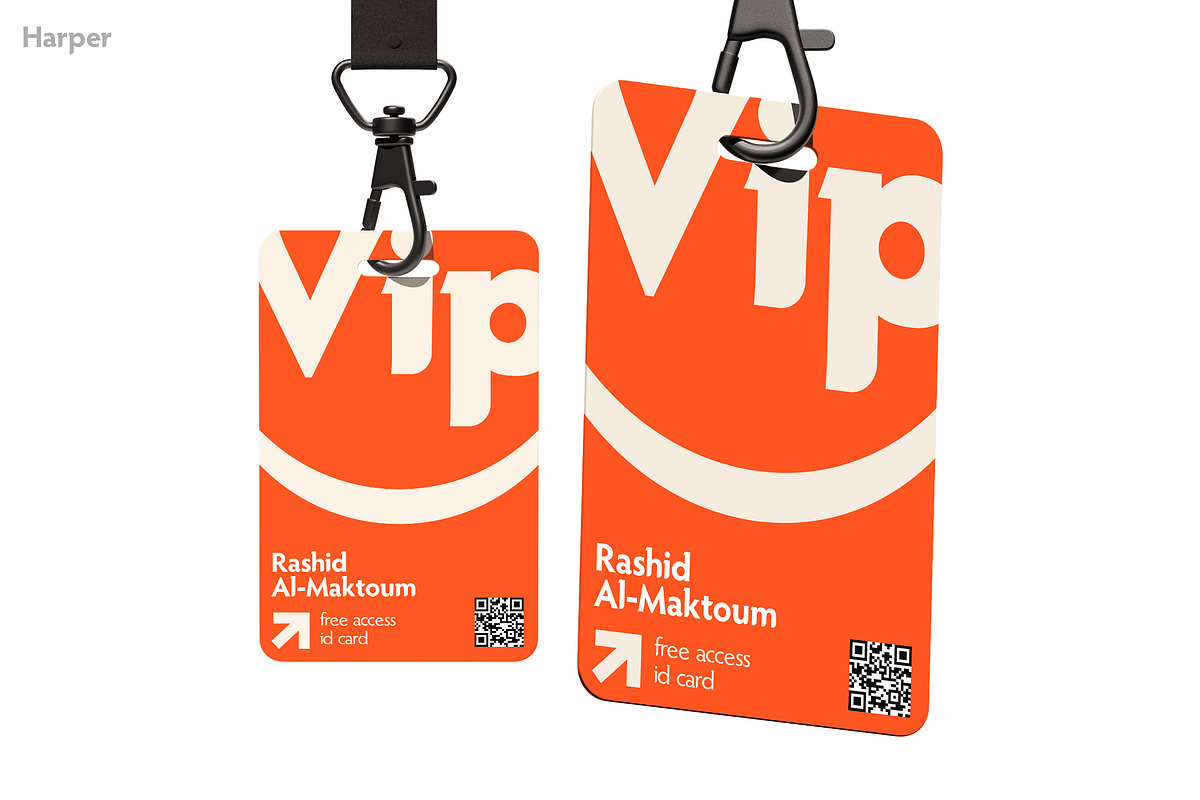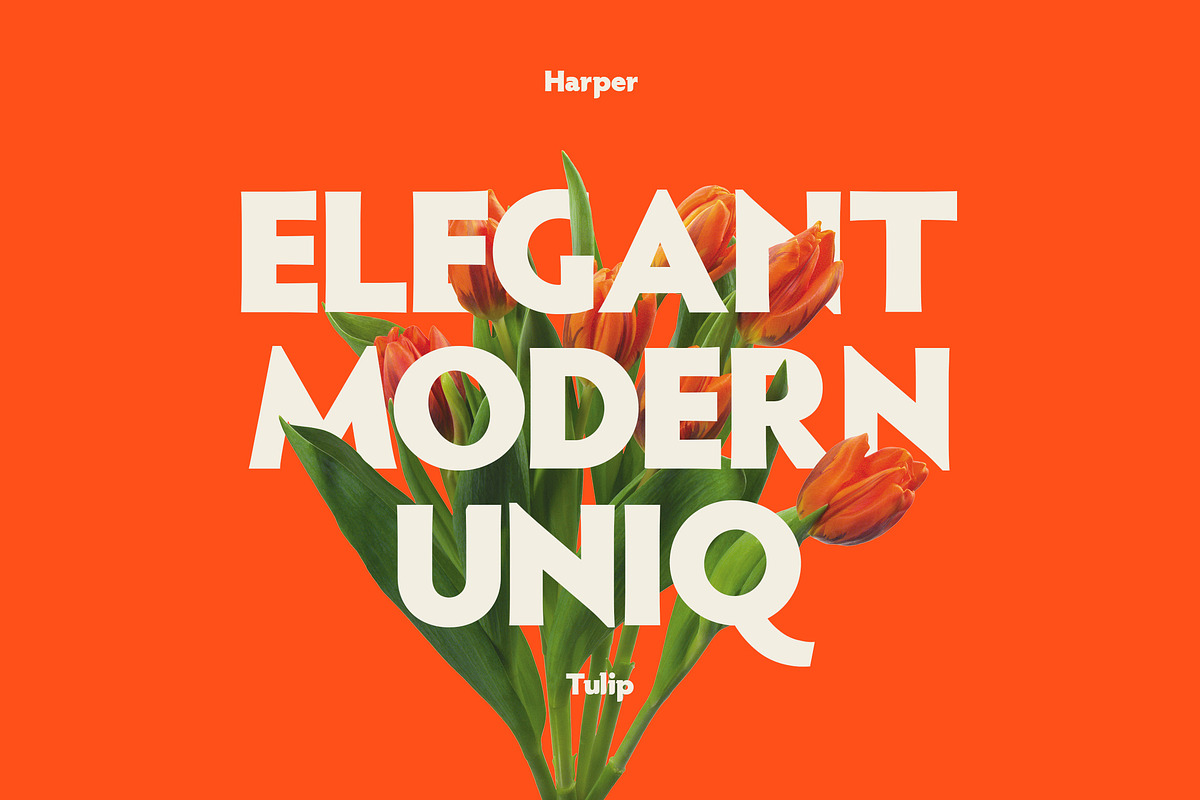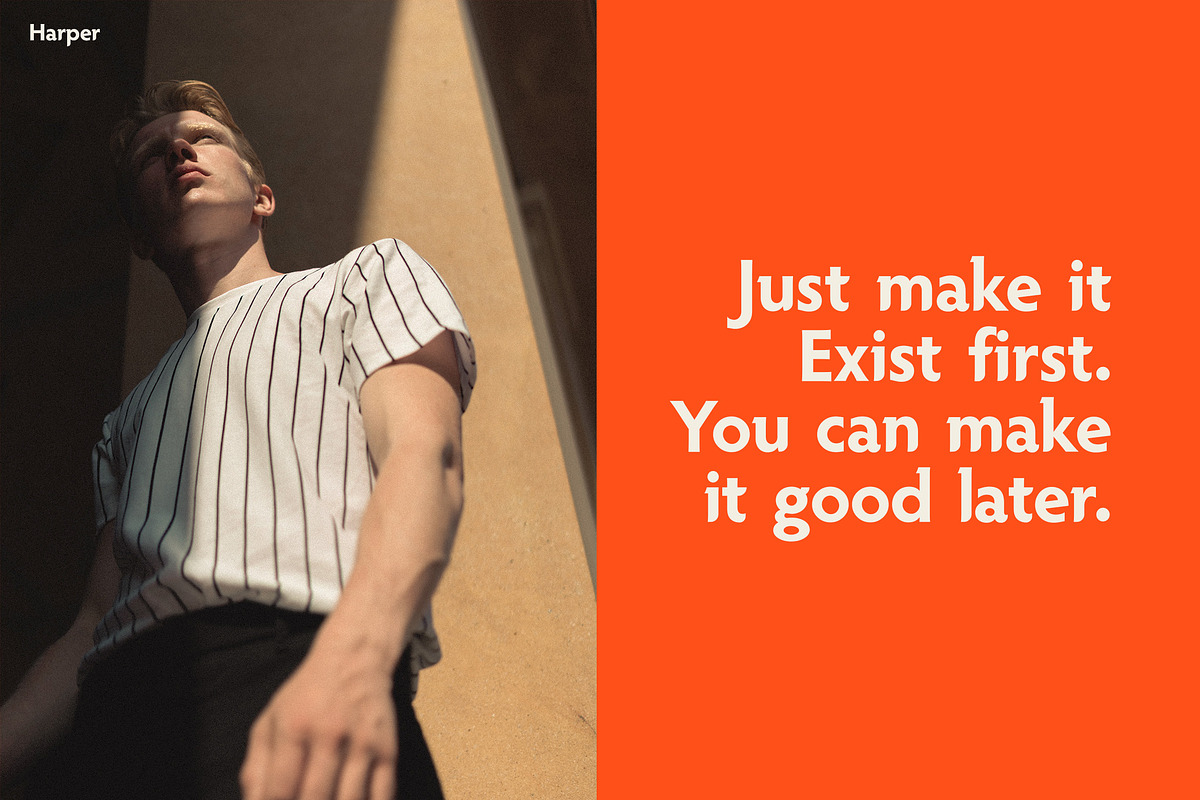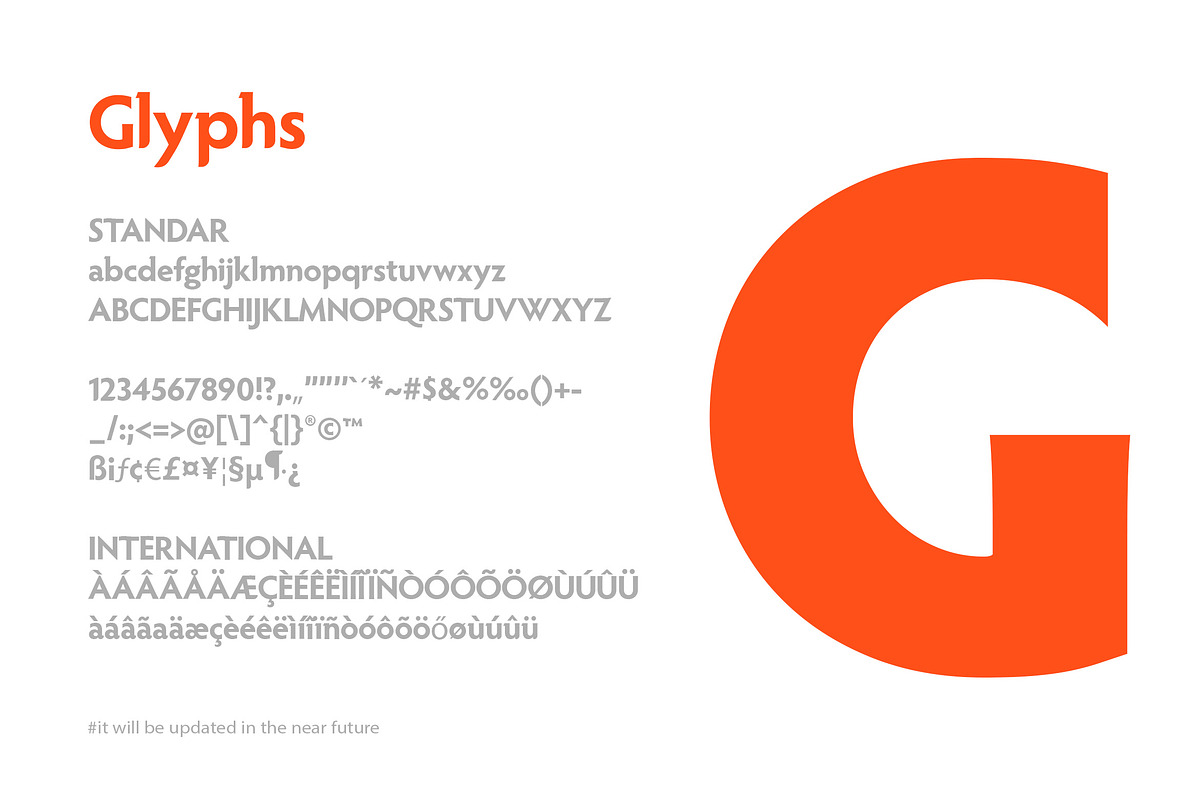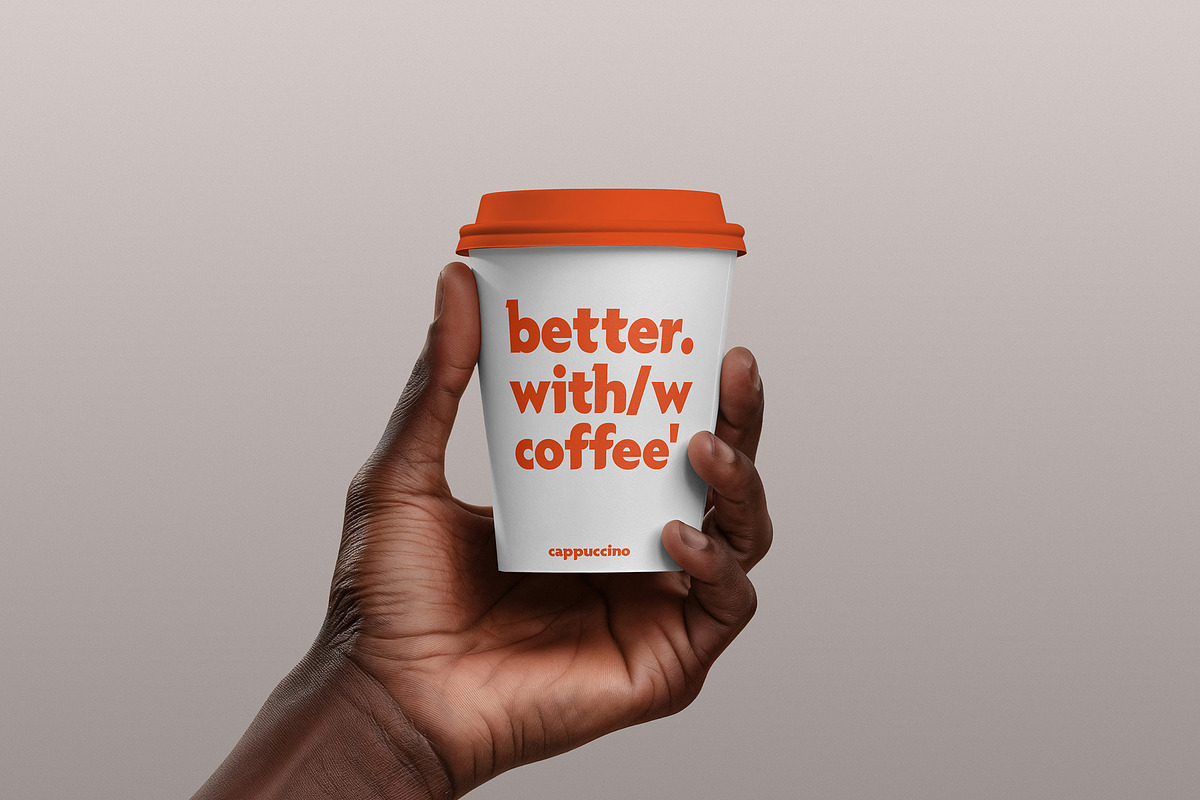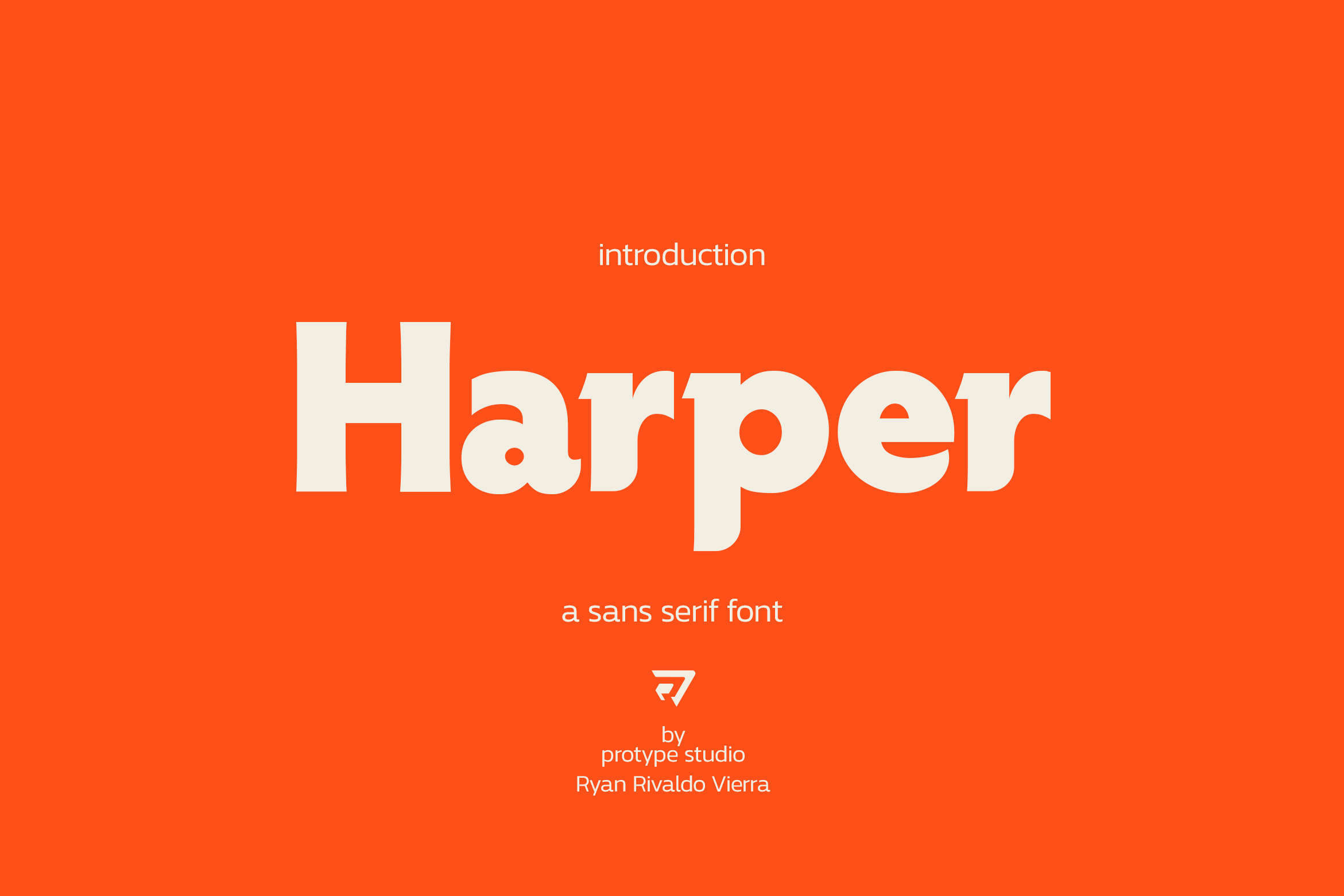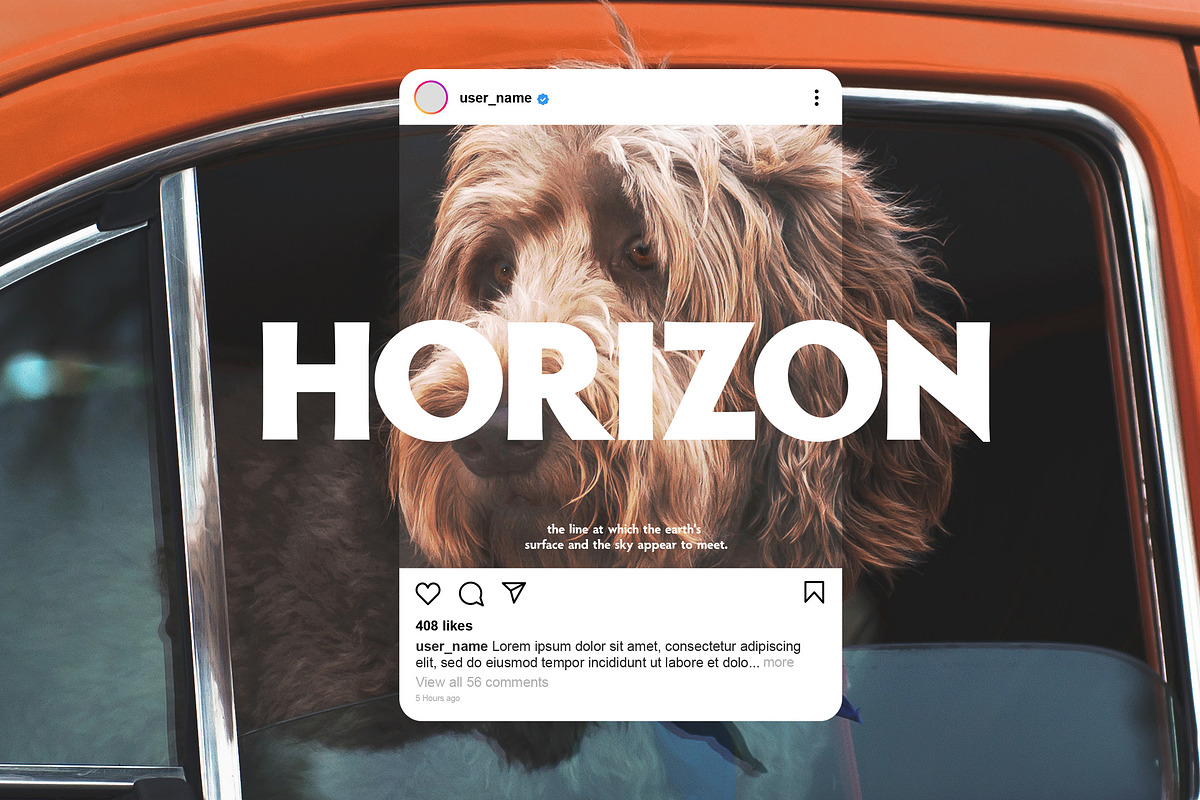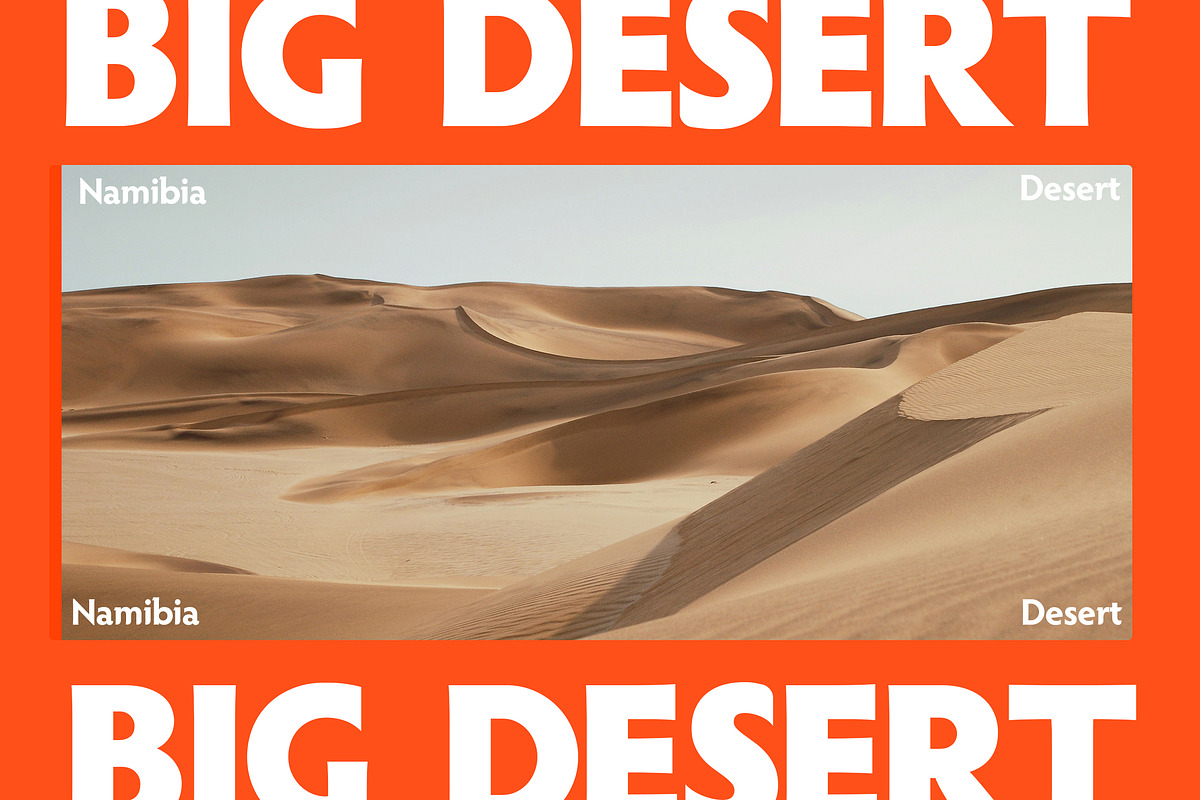
Harper Sans Serif Font
a brand new typeface by ryan rivaldo vierra - This is harper sans serif font a typeface is the design of lettering that includes variations, light, regular, bold each of these variations of the typeface is a font. there are thousands of different typefaces in existence, with new ones being developed constantly
Harper (Update) is a cool, versatile and thick lettered display font. It will look stunning on any poster flyer or print.Use this font for your designs and explore its endless possibilities.